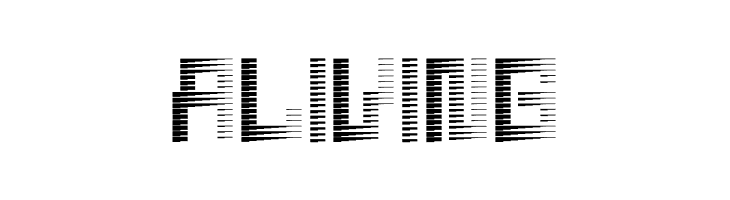
Future Forces Condensed Font
- Font: Future Forces Condensed
- Weight: Condensed
( Fonts by Dave Fabik - home.teleport.com/~dfabik/ )
A modern, glitch-inspired font with dynamic horizontal lines and playful lowercase letters.